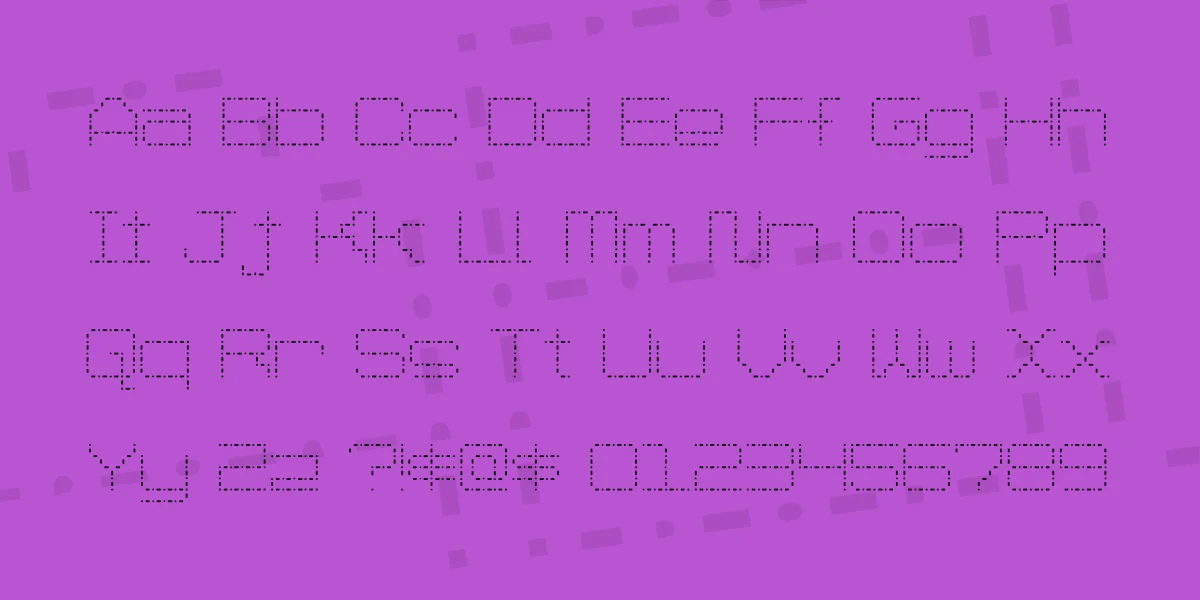
This is another digital-style typefaces (see Stash of Dashes). If you think the two are similar, it's because they were made the same day! The name is taken from "dot matrix", where there are uniform-sized dots.